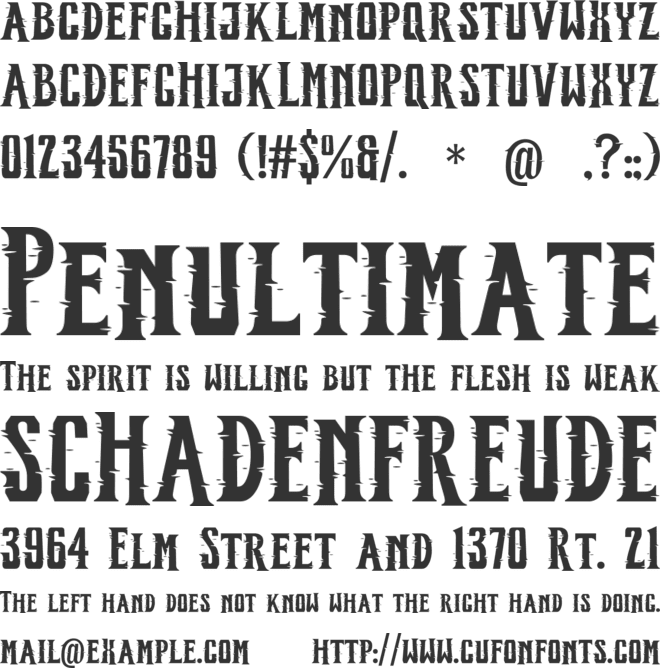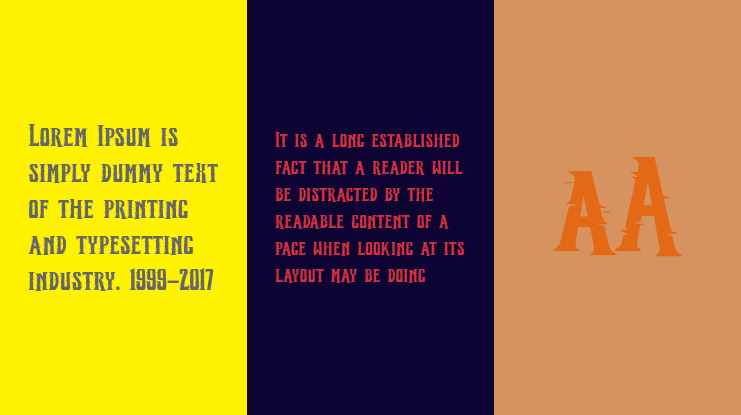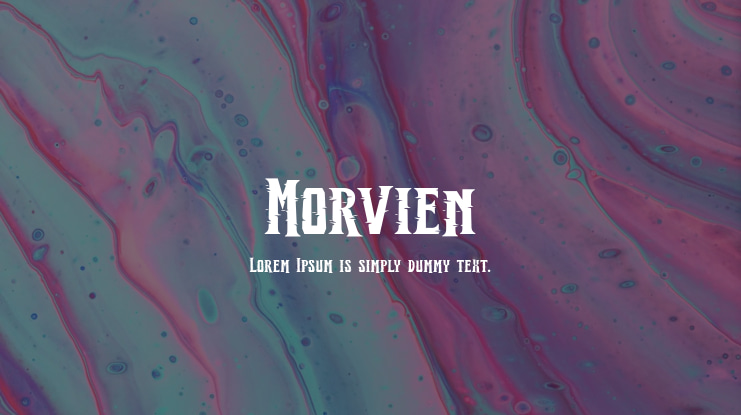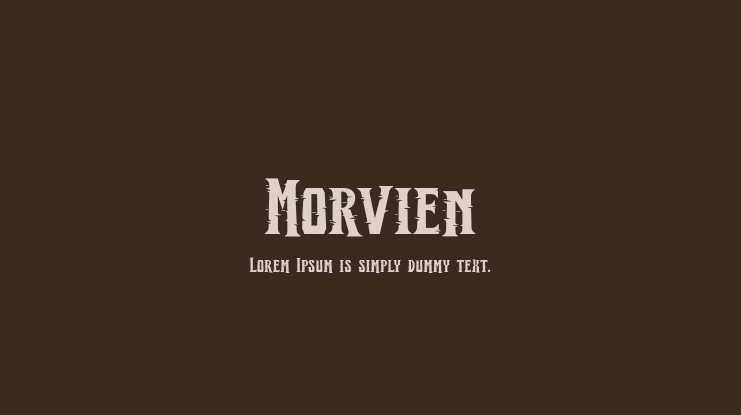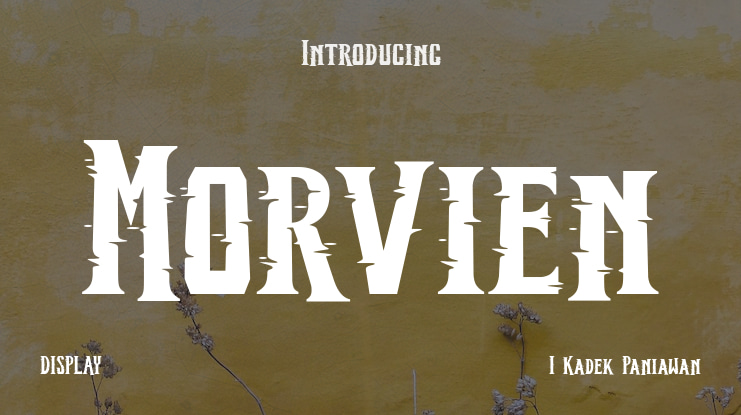
Morvien Font
Introducing Morvien Typeface - a bold and dynamic display font that brings a unique edge to your creative projects. With its distinctive torn shapes and powerful design, Morvien Typeface is the perfect choice for film titles, game interfaces, comic book lettering, superhero themes, and music posters. This font is not just a typeface; it's an artistic statement that adds a touch of drama and excitement to your visual creations.